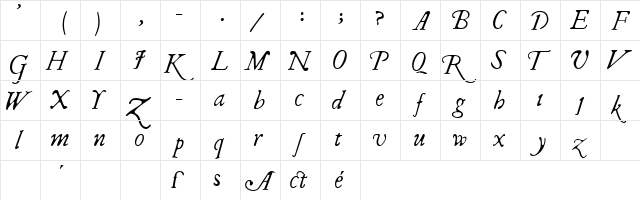
ILShakeFest Regular
Design Context for ILShakeFest Typeface
ILShakeFest is a composed and adaptable typeface that performs quietly and consistently across a wide range of design contexts.
Pro Tip: Use ILShakeFest in both headline and body roles to test its range before committing to a single application.